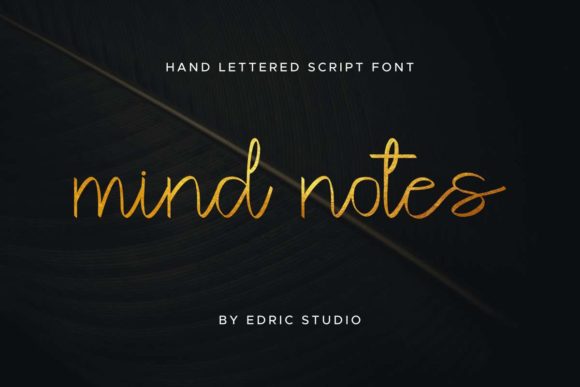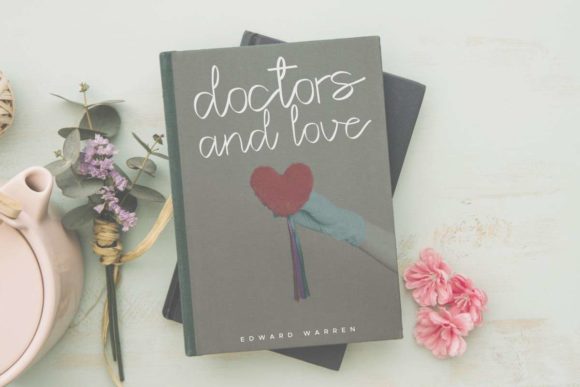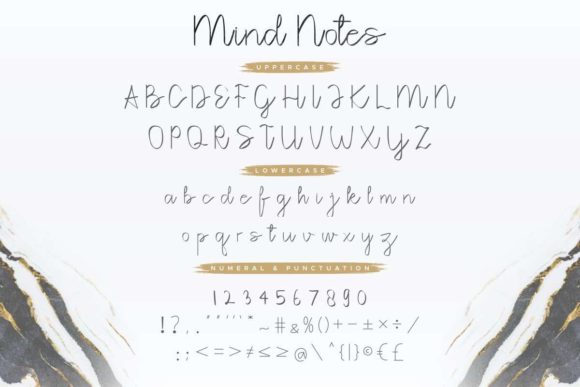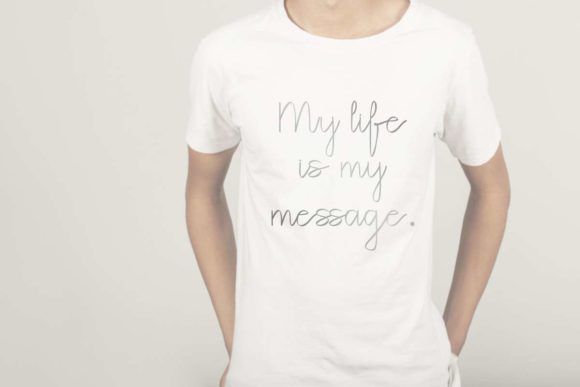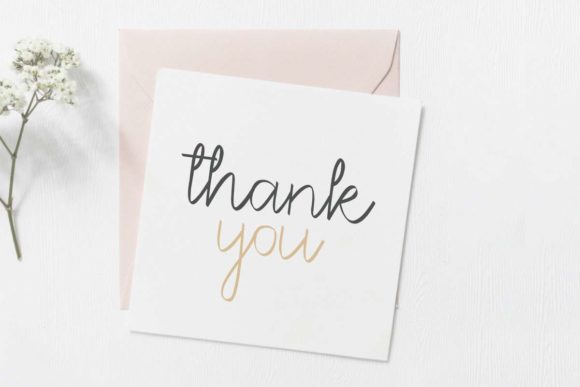
Introduction to Mind Notes Font
As designers, we’ve all been there – staring at a blank page, trying to conjure up the perfect typography to bring our creative project to life. The search for the perfect font can be a daunting task, but what if I told you that your search is over? Enter Mind Notes Font, a stunning typeface that’s about to revolutionize your design process.
With its elegant, calligraphic influences and modern twist, Mind Notes Font is the ultimate design resource for any creative project. Whether you’re working on a high-end branding campaign or a simple stationery design, this versatile font is sure to impress. And the best part? It’s a free download, making it an accessible addition to any design arsenal.
Whether you’re a seasoned pro or just starting out, Mind Notes Font is a valuable addition to your design toolkit. Its high-quality, transparent background makes it easy to customize and pair with any design element, ensuring that your work stands out from the crowd.
Key Features of Mind Notes Font
- High-quality, professional design perfect for creative projects, such as graphic design, digital art, and more.
- Features a transparent background, allowing for easy layering and customization in design applications.
- Includes a range of characters, including uppercase and lowercase letters, numbers, and symbols, to support a variety of creative projects.
- Designed with a modern aesthetic, Mind Notes Font is ideal for use in digital and print media, including logos, branding, and packaging.
Honest Review: Mind Notes Font
I recently had the opportunity to work with the Mind Notes Font, and I must say it’s a fantastic design resource for any creative project. The font is high quality and perfect for adding a touch of elegance to your work.
- ✨ Elegant and modern design: The Mind Notes Font has a clean and sophisticated look that’s perfect for creating a professional impression.
- ✨ Transparent background: The font’s transparent background makes it easy to use on any design without worrying about the background conflicting with the text.
- ⚠️ Limited font variations: While the font is beautiful, there are limited variations available, which might limit its use in certain design projects.
- ⚠️ Not suitable for body text: Due to its elegant design, the Mind Notes Font is better suited for headings and titles rather than body text.
Overall, the Mind Notes Font is an excellent addition to any designer’s toolkit. While it may have some limitations, its high quality and elegant design make it a great choice for any creative project.
Mind Notes Font
The Mind Notes Font is a high-quality design resource perfect for creative projects. This free download features a transparent background, making it easy to customize and use in a variety of applications.
Tips for Getting the Most Out of the Mind Notes Font
Use the font in conjunction with other design elements to create a cohesive look. Experiment with different font sizes and colors to add visual interest to your project.
The Mind Notes Font is perfect for:
- Creating visually appealing social media graphics
- Designing engaging blog posts and articles
- Developing branding materials for small businesses
- Adding a personal touch to presentations and documents
Alternatives to Mind Notes Font
Montserrat Font is a high-quality sans-serif font that is perfect for creative projects requiring a clean and modern design. It’s a free download and can be used with a transparent background, making it ideal for designs where minimalism is key. When to use: Use Montserrat Font for headlines and titles in your design project. It compares to Mind Notes Font in terms of its modern and sleek appearance, but has a more geometric feel.